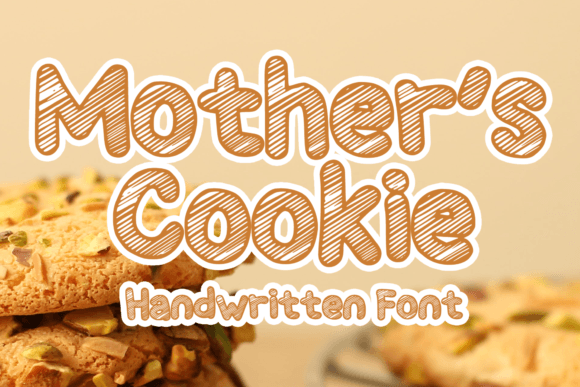
Introducing Mother's Cookie Font, a delightful display font inspired by the love and warmth of Mother's Day. This charming font is perfect for capturing the sentiments of this special occasion, whether you're creating heartfelt cards, designing heartwarming gifts, or crafting personalized messages.
With its playful and whimsical style, Mother's Cookie Font adds a touch of sweetness to any project. Its soft curves and flowing lines evoke a sense of nostalgia and tenderness, making it the ideal choice for expressing your love and gratitude to the special mother figures in your life.
This versatile font is more than just a Mother's Day marvel. Its charming personality shines through in a multitude of design ideas. Imagine your designs blooming with Mother's Cookie Font's elegance, whether it's adorning mugs with heartwarming messages, adding a personal touch to t-shirt designs, or crafting eye-catching logos that leave a lasting impression. Greeting cards, posters, and various other creations will be elevated with this font's undeniable charm.
But Mother's Cookie Font's magic doesn't stop there. Its playful nature makes it a delightful addition to invitations, adding a touch of whimsy to special events. And for those with a creative flair, this font opens up a world of possibilities in crafting unique and captivating social media posts that are sure to capture the hearts of your audience.
In the world of digital storytelling, Mother's Cookie Font takes center stage, lending its charm to image blog posts and online content. Its ability to evoke emotions and engage readers makes it the perfect choice for bloggers seeking to create visually stunning and emotionally resonant content.